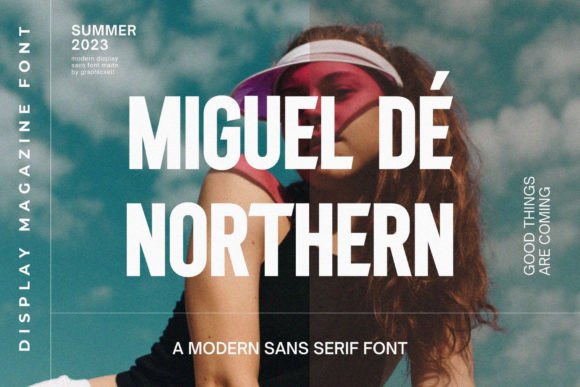
Embark on a typographic journey with Miguel De Northern, a sans serif font that exudes modern elegance and timeless style. Its sleek, minimalist design is a testament to the power of simplicity, combining clean lines, geometric shapes, and balanced proportions.
Miguel De Northern is the epitome of versatility, effortlessly adapting to a myriad of design endeavors. Whether you're crafting eye-catching logos, designing sleek brochures, or creating captivating websites, this font will elevate your creations to new heights. Its crisp and refined letterforms bring a touch of sophistication to any project, leaving a lasting impression on your audience.
Ignite your creativity with Miguel De Northern's boundless possibilities. Its clean and legible structure makes it perfect for crafting compelling headlines that demand attention. Whether you're creating posters, social media graphics, or product packaging, this font will ensure your message is conveyed with impact and clarity. The sharp edges and precise curves of Miguel De Northern add a touch of modernity, setting your designs apart from the ordinary.
Miguel De Northern is not just a font; it's an artistic expression that breathes life into your design visions. Its contemporary flair adds a touch of elegance and sophistication, making it the perfect choice for branding, marketing, and advertising materials. Whether you're creating brochures, flyers, or business cards, this font will elevate your brand's identity and leave a lasting impression on your customers.
Unlock your creative potential and embrace the beauty of Miguel De Northern, a font that will transform your design projects into masterpieces. Its timeless appeal and versatility make it a must-have for any designer's toolkit, ensuring that your creations stand out from the crowd and leave an indelible mark on the world.